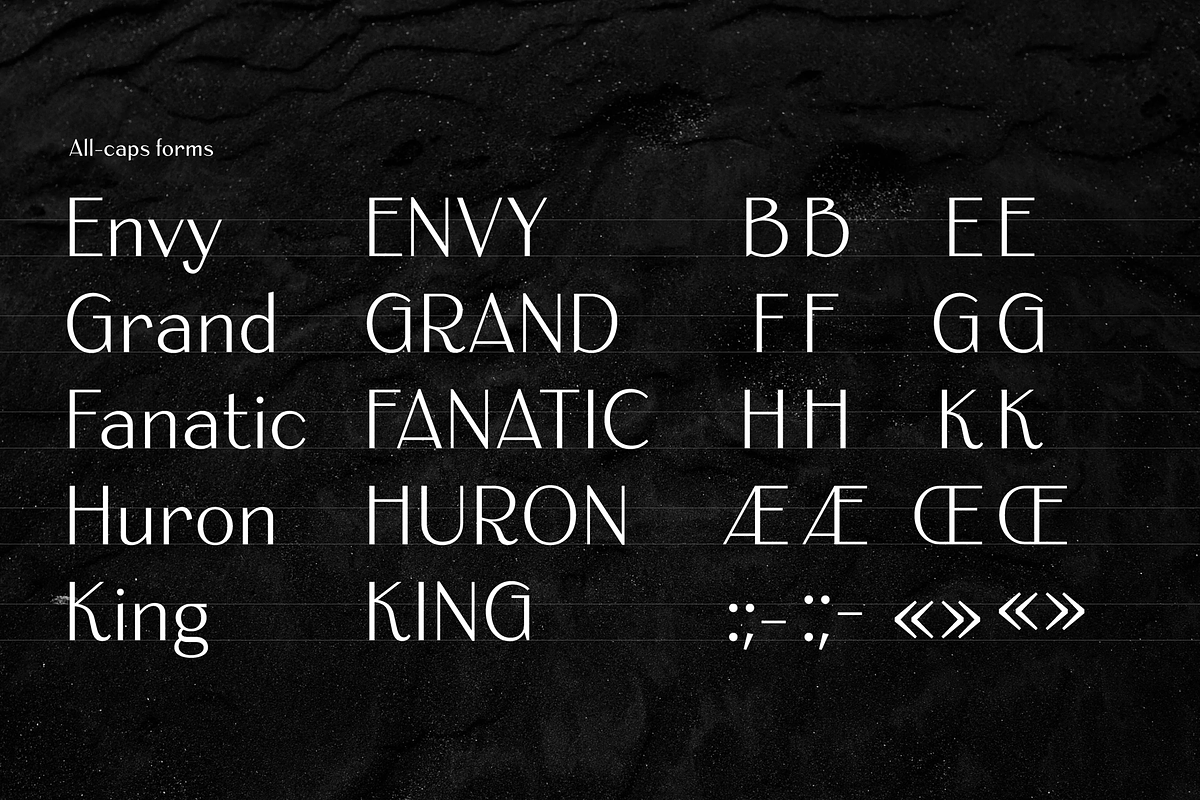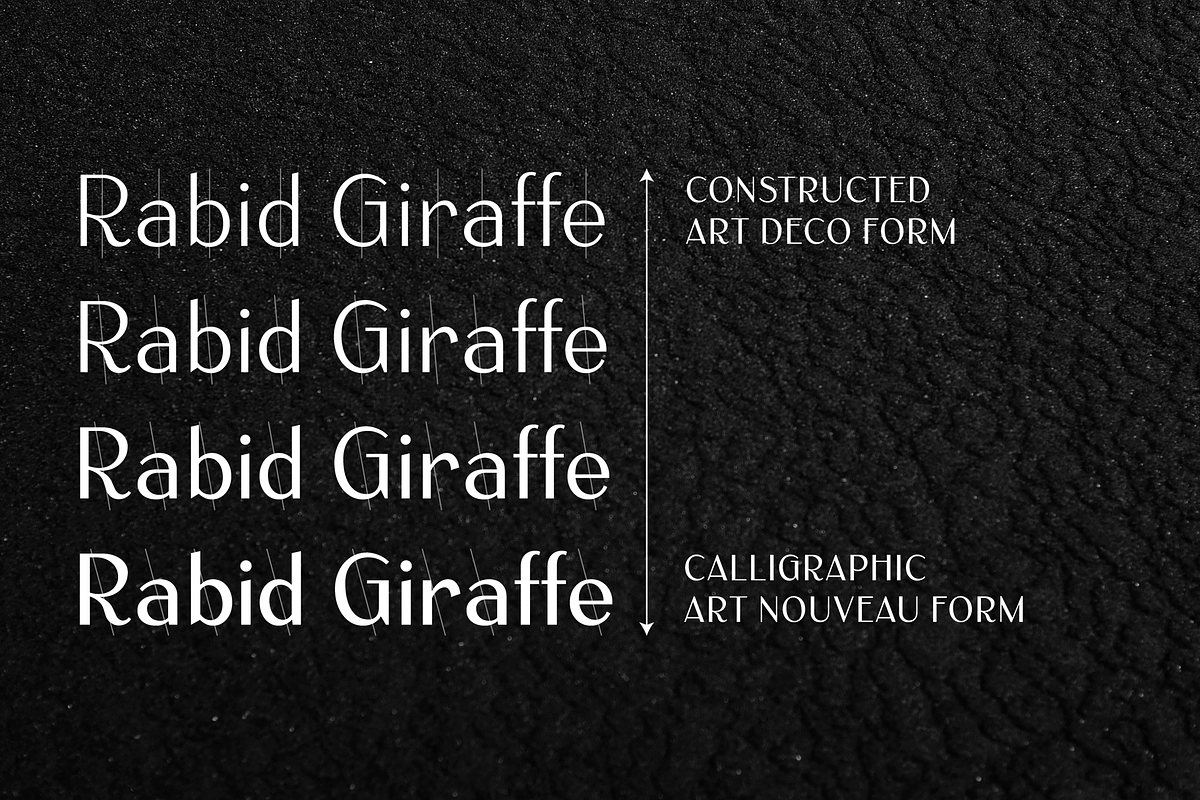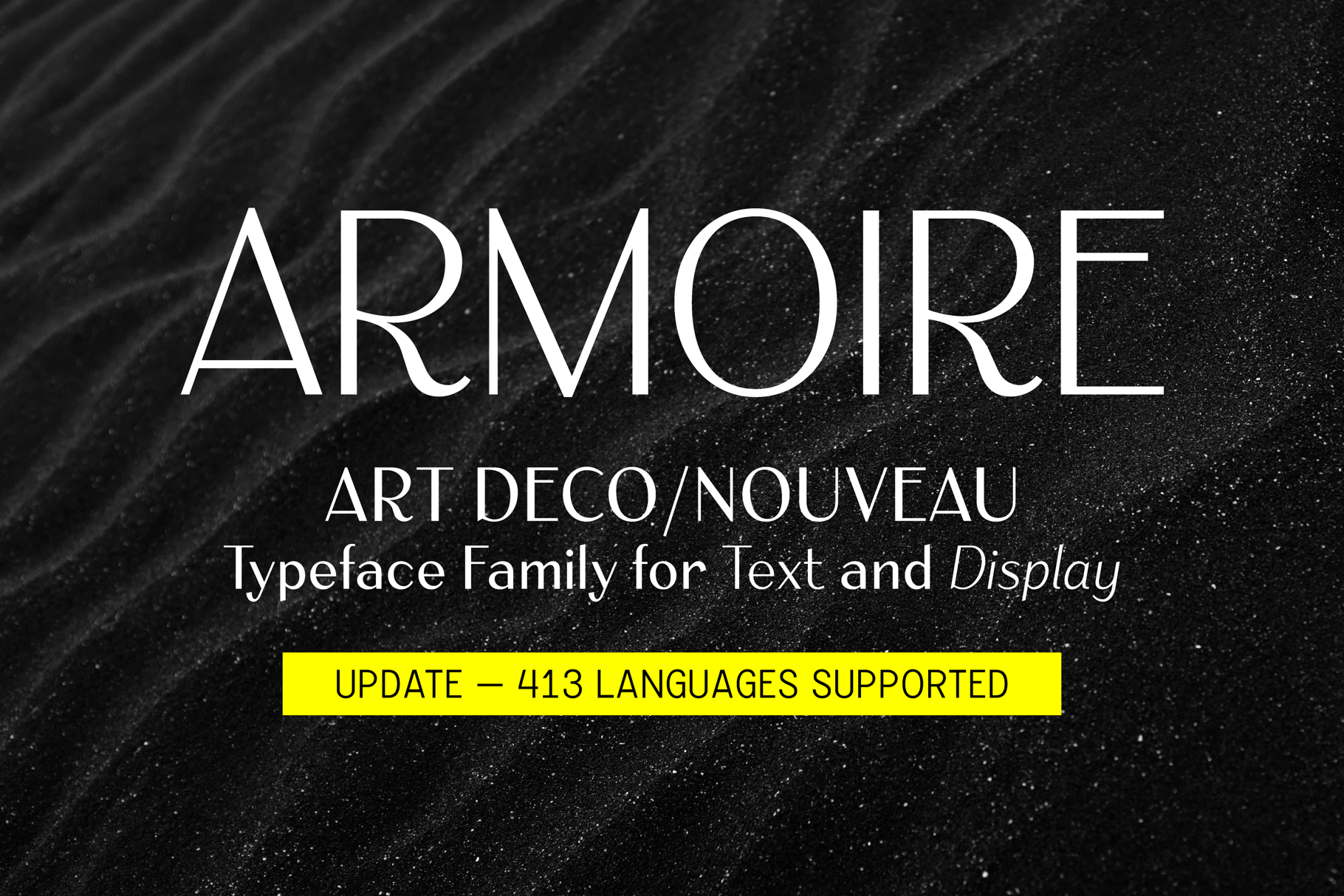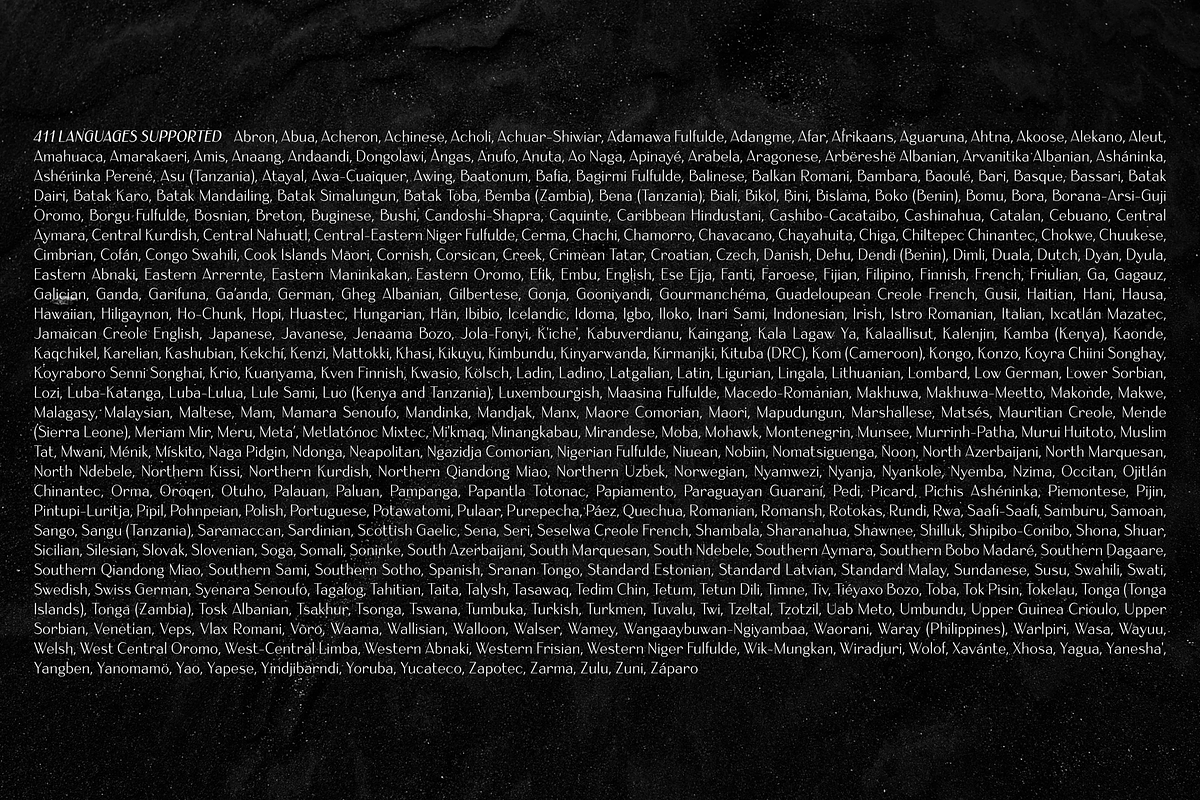
Armoire: Art Deco font family
Armoire is a contrast sans-serif typeface that blends the elegant rationalism of Art Deco with the ornamental craftsmanship of Art Nouveau.
Designed for both display and text usage, Armoire features a subtle range of weights with accompanying italics, and a special set of case-sensitive uppercase letters.
Art Deco/Art Nouveau
Armoire's lightest weights are constructed in a geometrically-influenced Art Deco style, but as weight is added, the angle of stress begins to rotate, lending a calligraphic flair to the bold weights.
The Armoire family
Armoire's Book and Regular weights allow typographers to choose a slightly lighter or darker weight with a subtle 13% difference, each with an accompanying bold and italic.
Armoire's italics are true italics (not simply a slanted roman) with slightly narrower and lighter letterforms that add a touch of classic elegance.
OpenType features
A classic Art Deco lettering style typically features extreme high and low crossbars in letters like A, F, H and E, but they have been lowered in Armoire's default capitals, to match the height of the lowercase. Activating the `case` feature will raise the high crossbars in E, F, H, K, and will elevate punctuation to cap height.
- `case` Uppercase-sensitive punctuation and raised crossbars on EFGHK
- `ss01` Raised crossbars on EFGHK
- `onum` Old-style numerals
- `lnum` Lining numerals
Character set & language support
- Latin alphabet (A–Z, a–z) plus accented characters
- Lining and old-style numerals
- Punctuation, symbols, arrows
Armoire's 1.1 update increases the total glyphs to 614, and language support to 413 languages! Various small improvements have also been made.